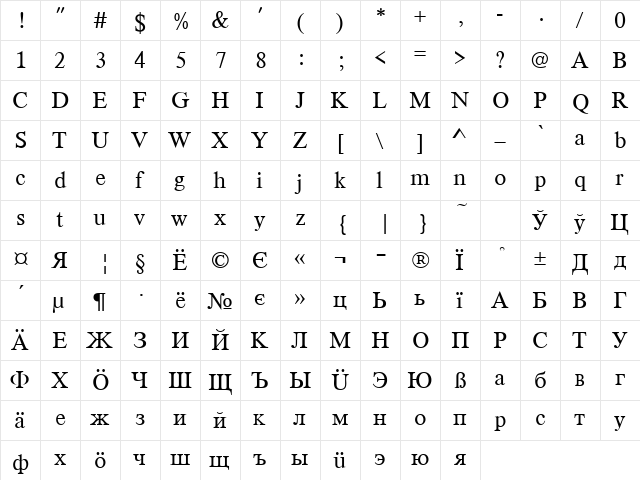
CyrillicGermanTimesSSK Regular Font Preview
CyrillicGermanTimesSSK Regular
Design Context for CyrillicGermanTimesSSK Typeface
CyrillicGermanTimesSSK offers clean, dependable letterforms without strong stylistic allegiance, making it a practical choice for designers who need flexibility.